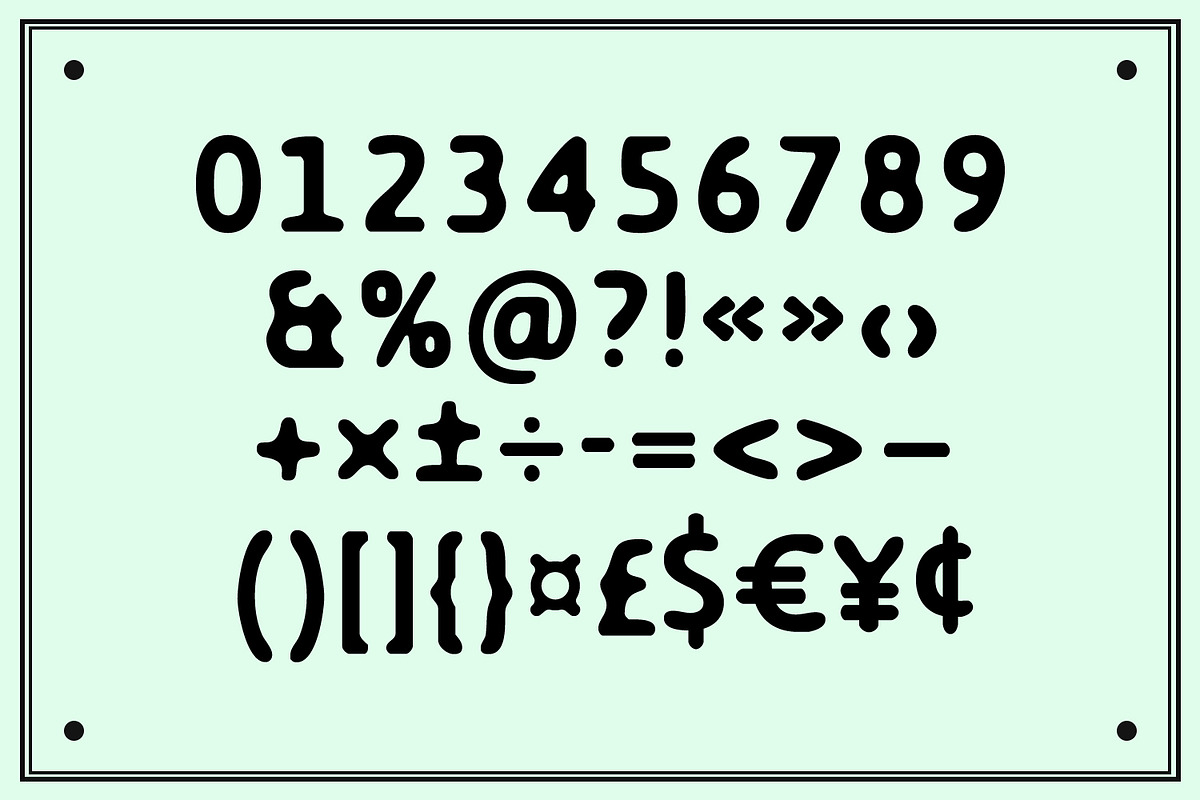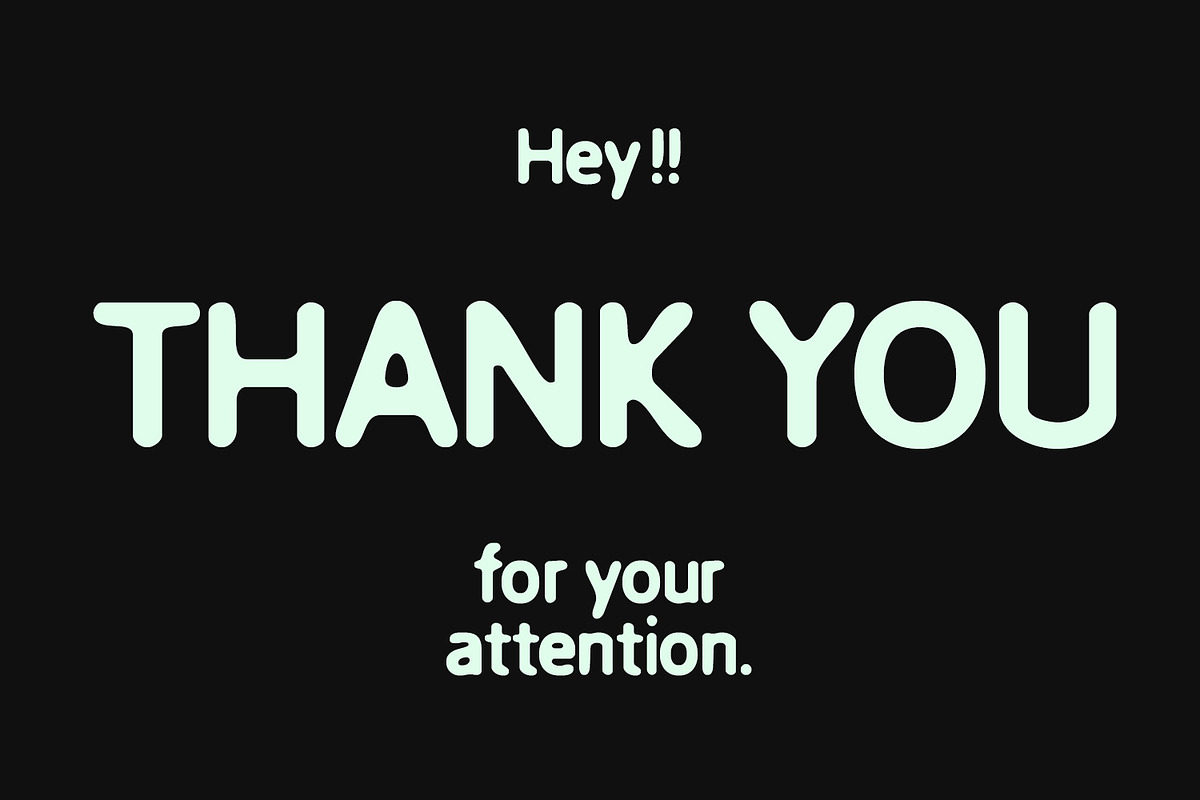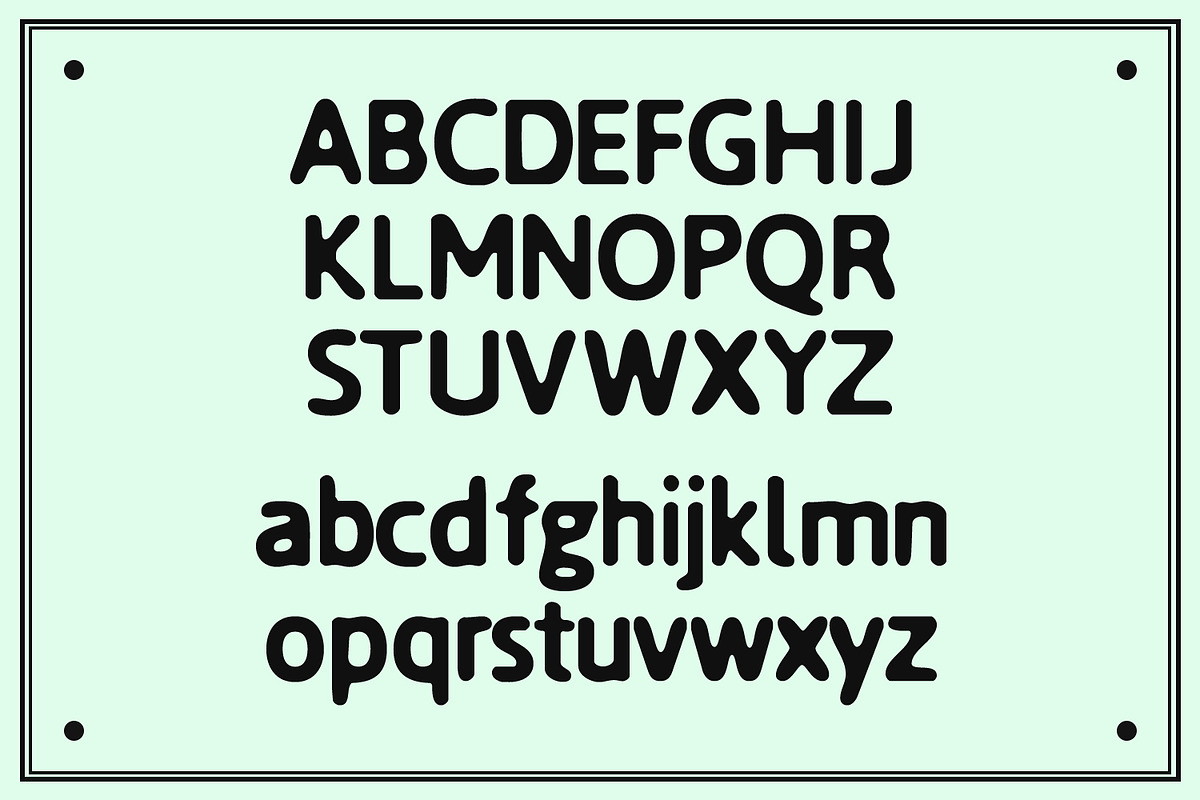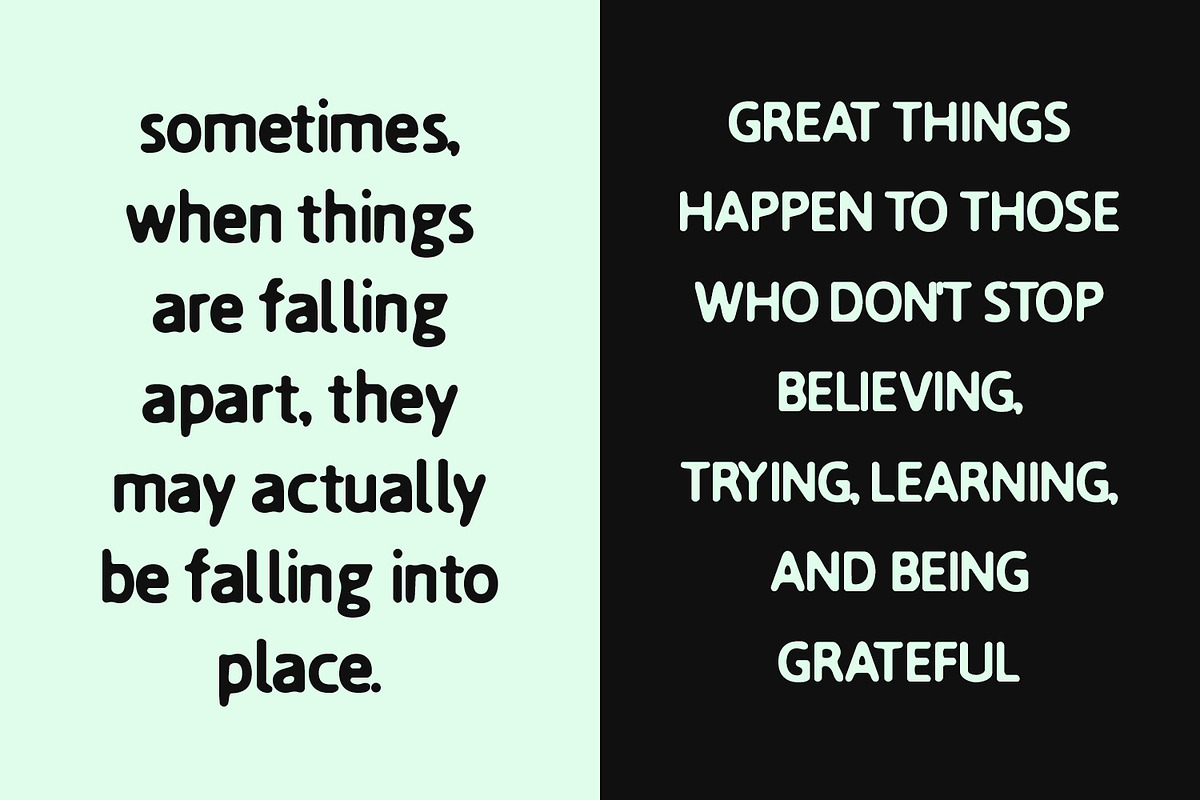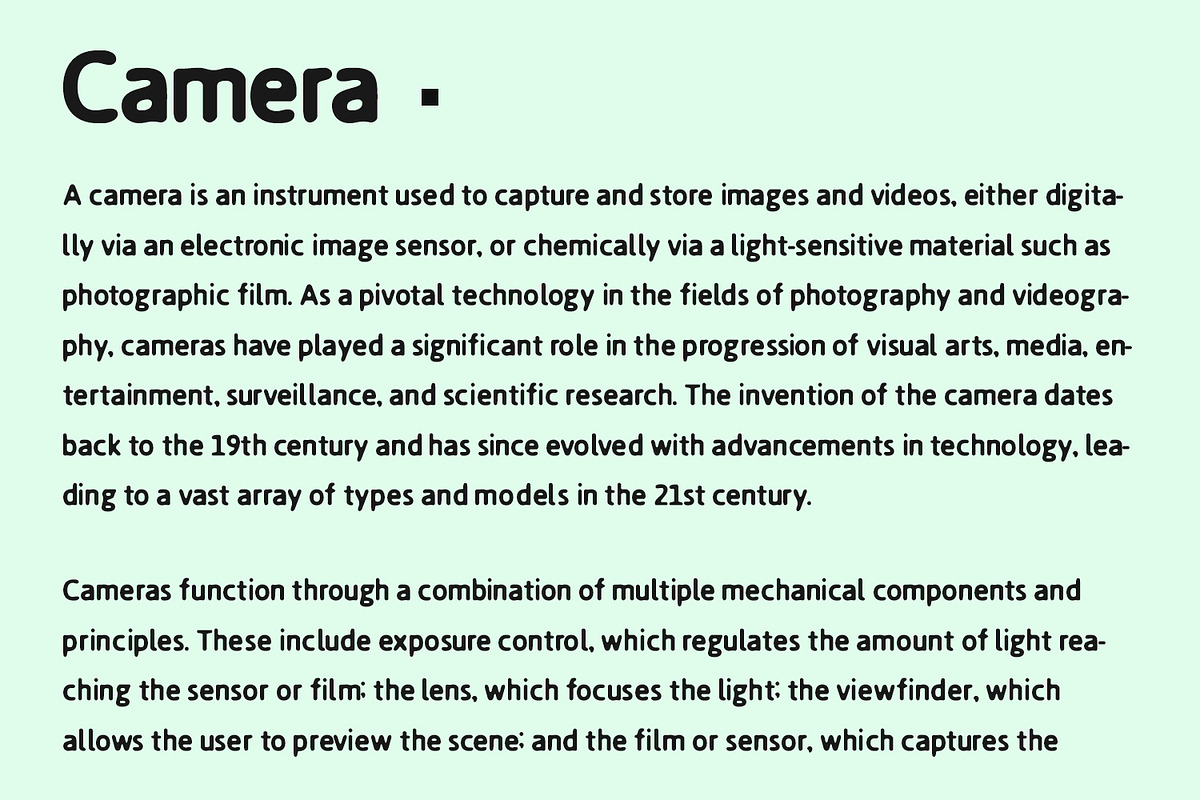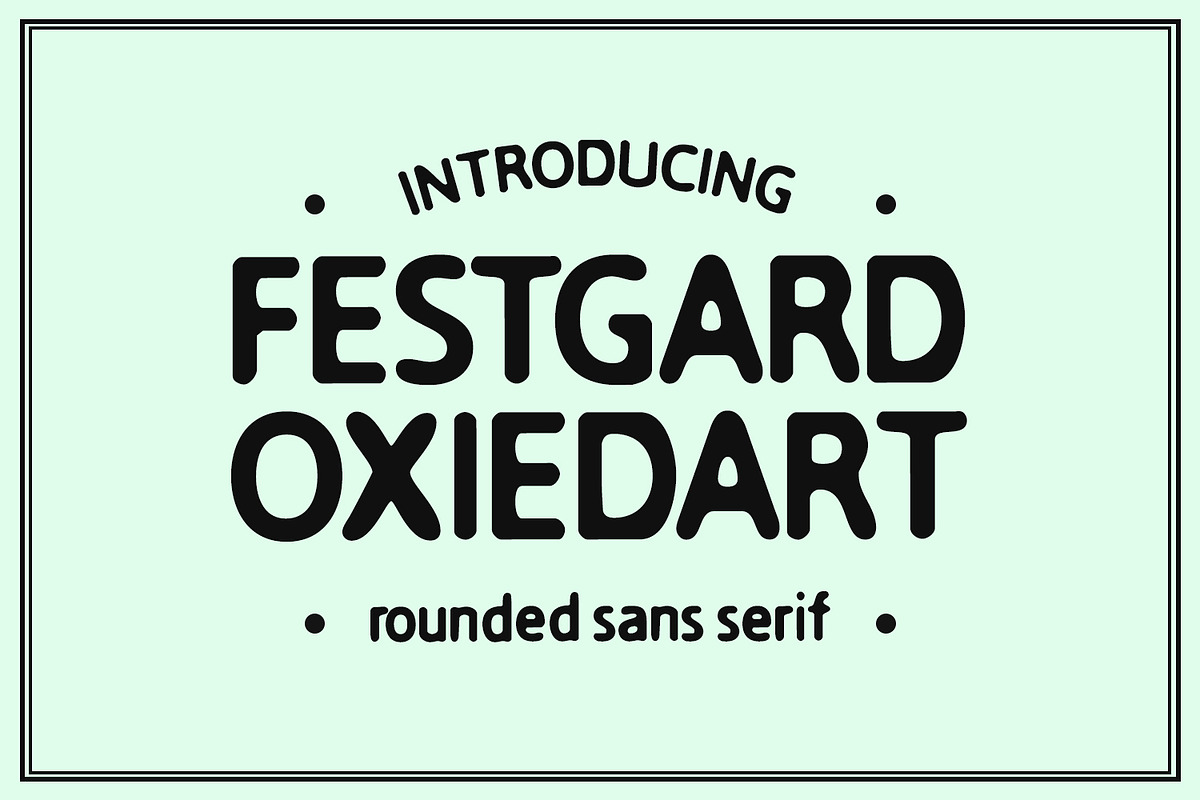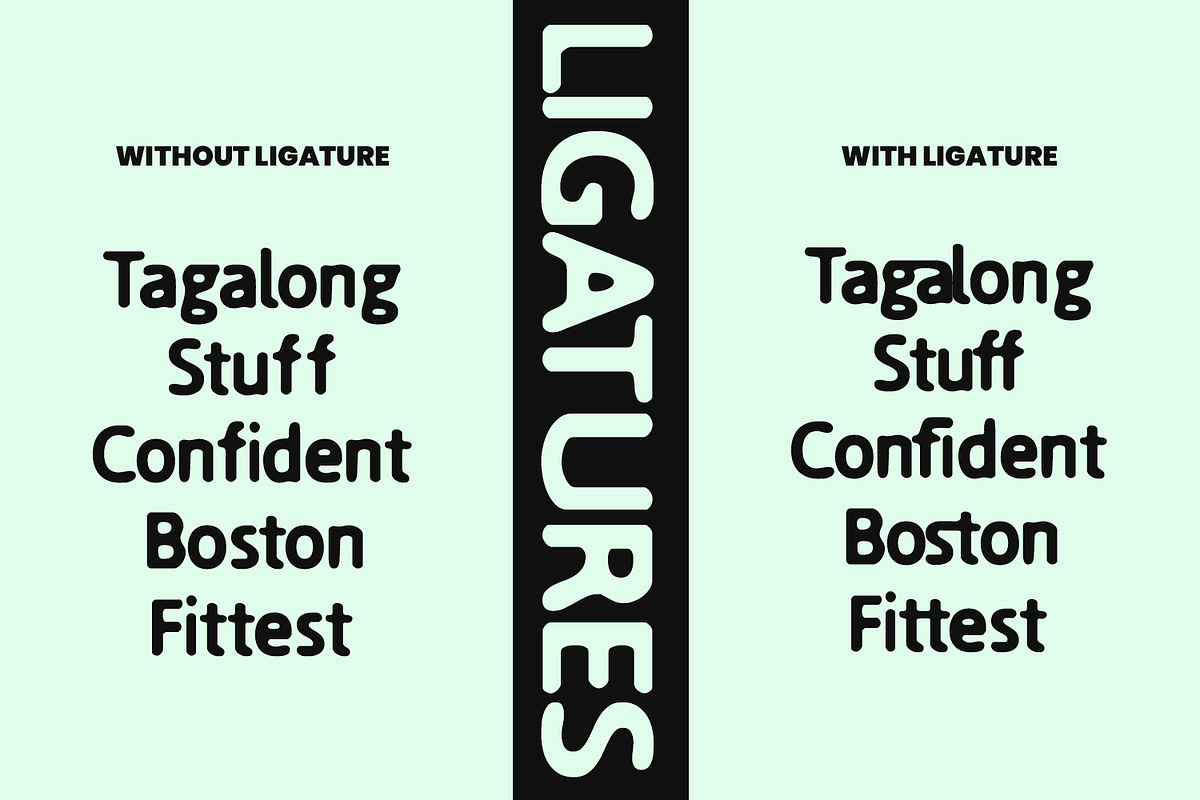
Festgard Oxiedart Rounded Sans Serif
Festgard Oxiedart is a rounded sans serif font. With bold stroke, fun character with a bit of ligatures. To give you an extra creative work. Festgard Oxiedart font support multilingual more than 100+ language. This font is good for logo design, Social media, Movie Titles, Books Titles, a short text even a long text letter and good for your secondary text font with sans or serif. Make a stunning work with Festgard Oxiedart font.